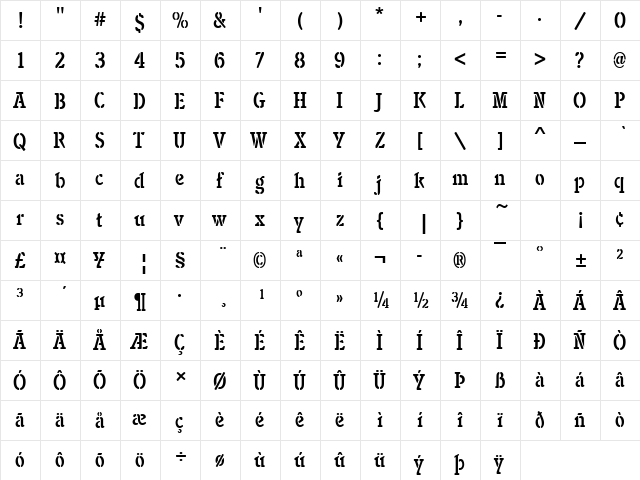
Italia Becker Stencil Med Cond Regular
Design Context for Italia Becker Stencil Med Cond Typeface
Italia Becker Stencil Med Cond borrows the utilitarian aesthetic of stencil lettering, with its characteristic cutaways and no-frills construction lending an industrial edge.
A strong choice for packaging that needs edge, warehouse aesthetics, and rough-and-ready visual identities.
Pro Tip: Use Italia Becker Stencil Med Cond at large sizes on packaging, posters, or apparel where the stencil cutaways read clearly. Avoid small sizes where those gaps become visual noise.